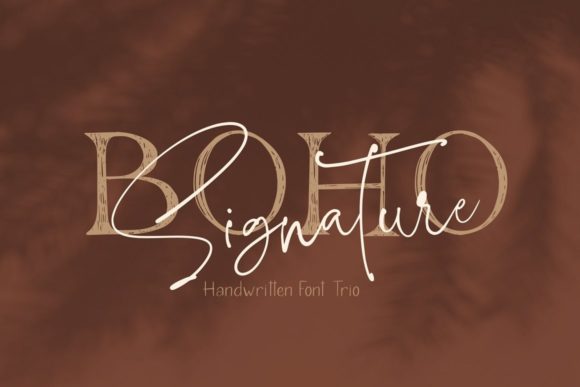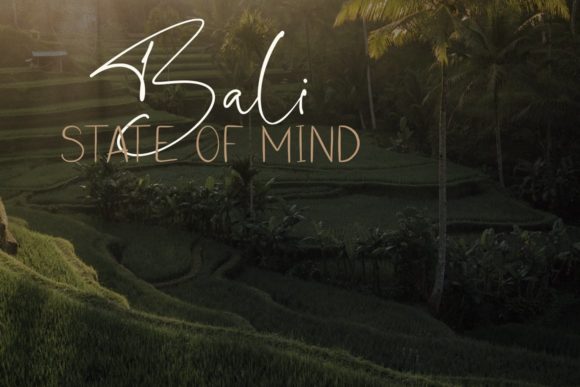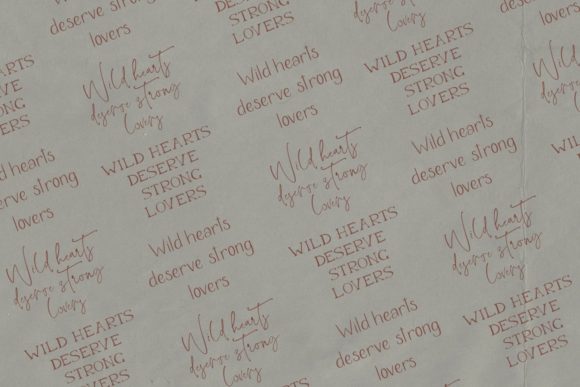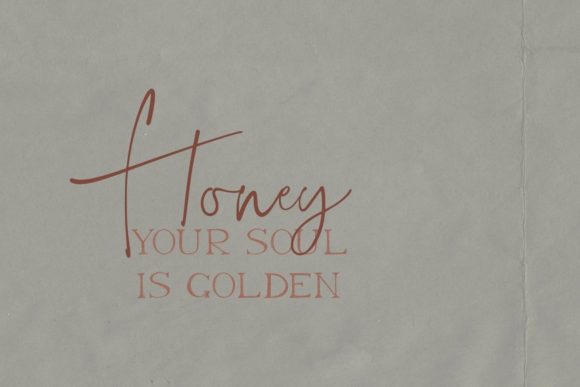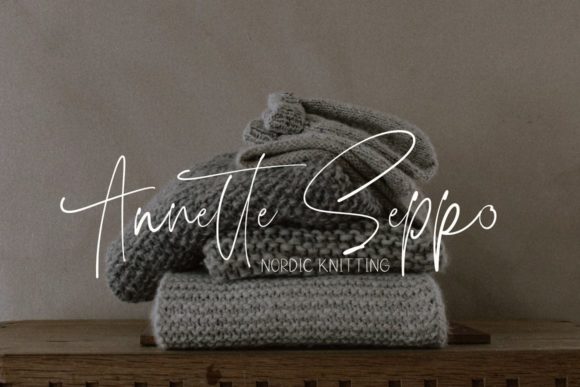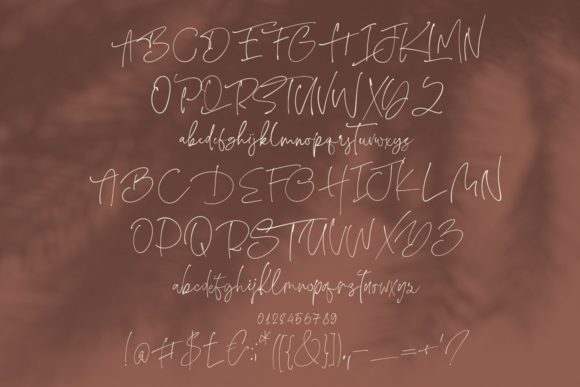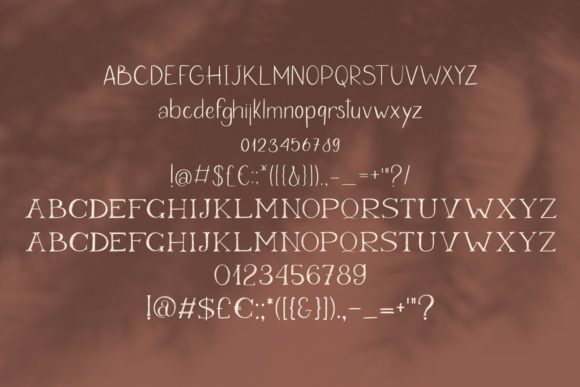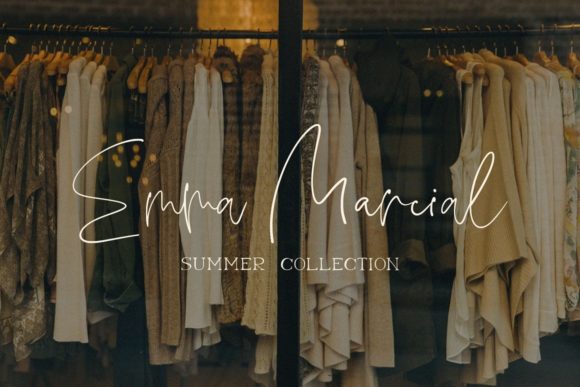
Boho Signature Trio Font
About Boho Signature Trio Font
Boho Signature Trio is a gorgeous trio font (script, sans serif and serif). Add it confidently to your projects, and you will love the results.